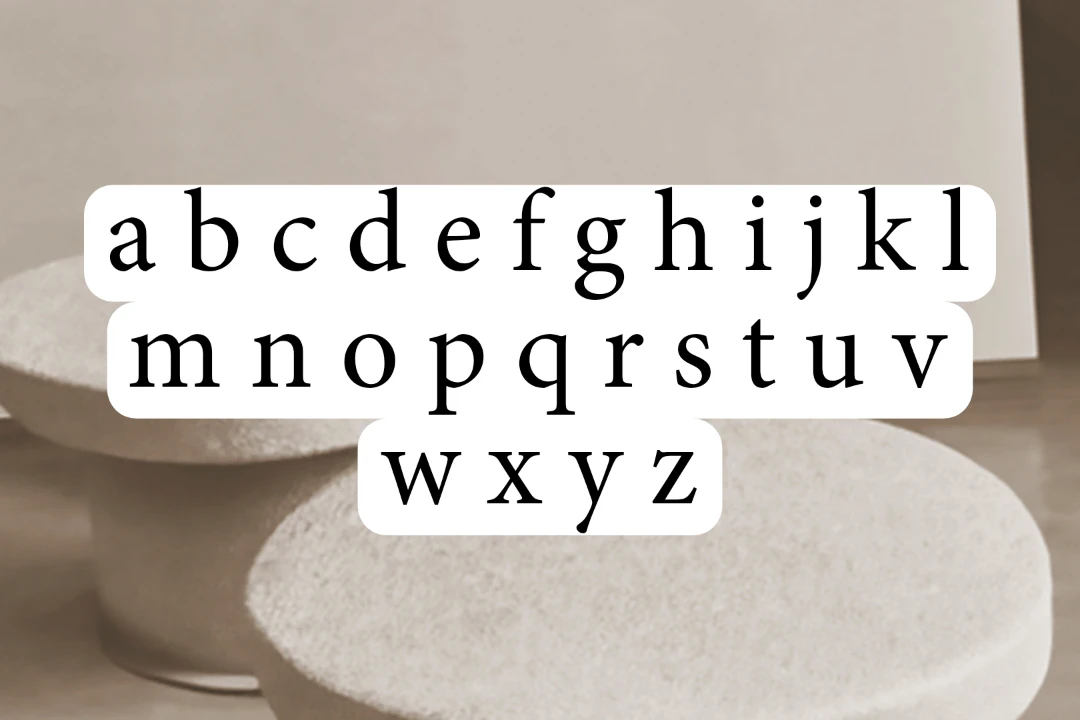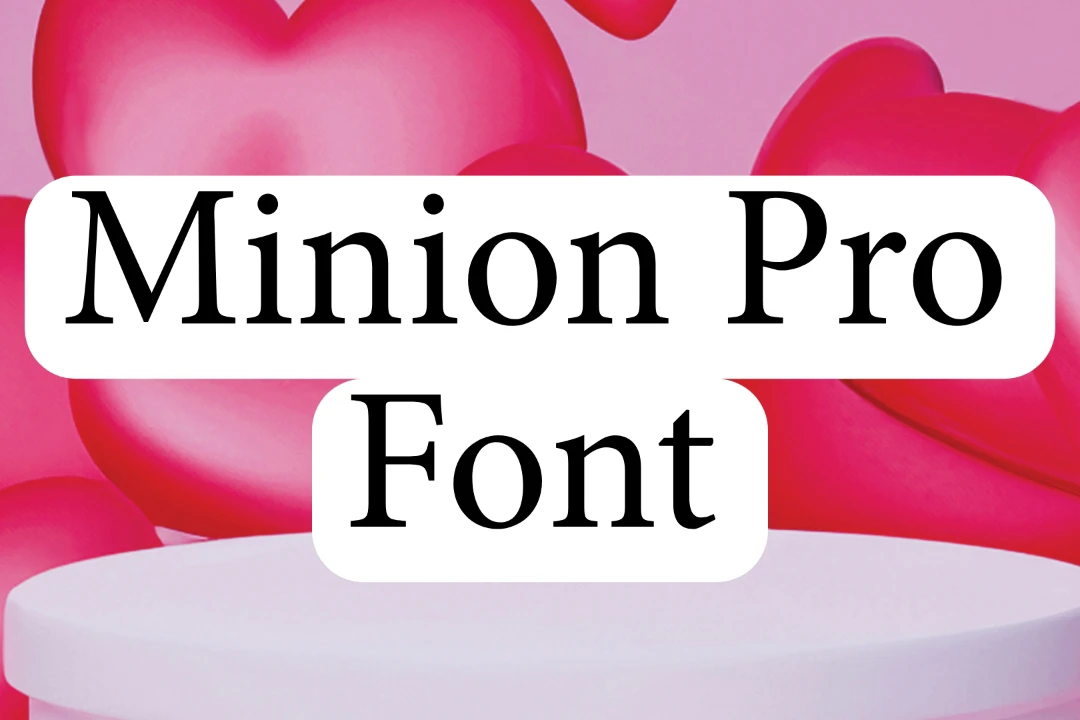
Minion Pro Font Free Download is a popular keyword among designers looking for a clean and professional serif typeface. Designed by Robert Slimbach for Adobe, this font belongs to the serif category and is widely used in editorial and print design.